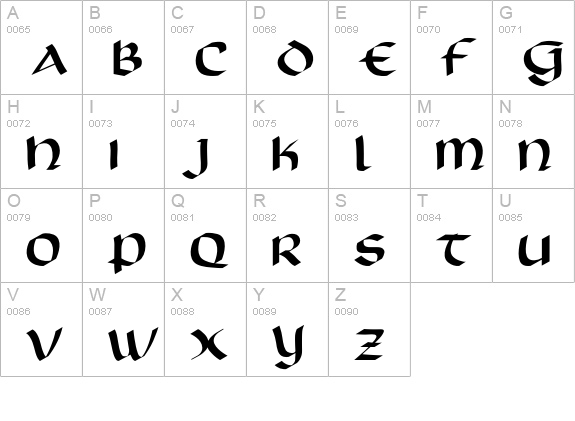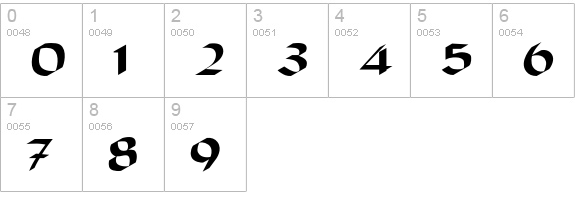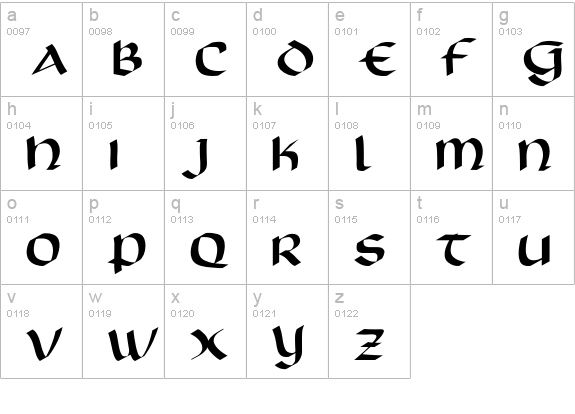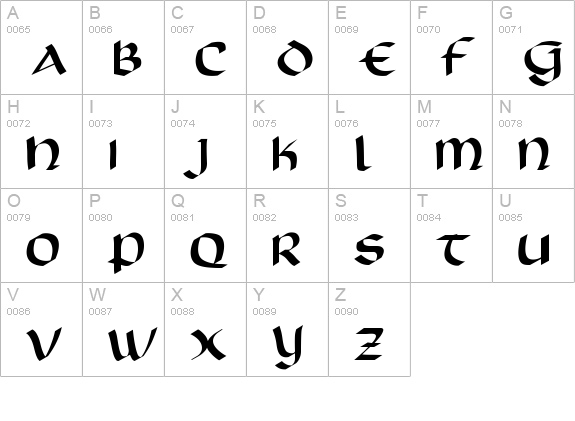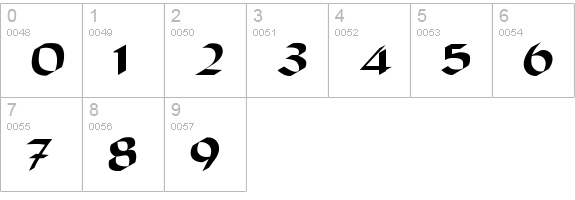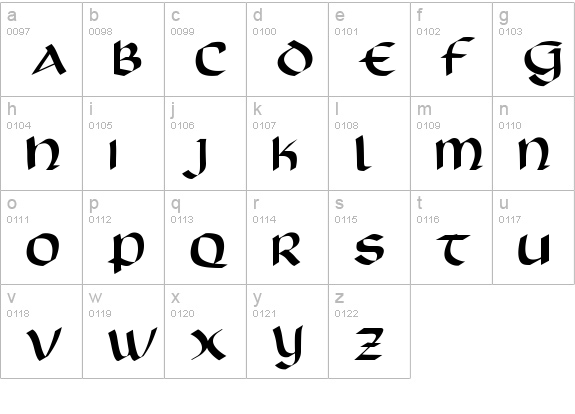
ScotfordUncial Font Details
ScotfordUncial font is a beautifully crafted typeface that exudes elegance and sophistication. With its unique and intricate letterforms, this font is perfect for adding a touch of old-world charm to your designs. The flowing curves and delicate strokes of ScotfordUncial font create a sense of grace and gracefulness, making it an ideal choice for invitations, greeting cards, and other creative projects. Whether you're designing a wedding invitation or a vintage-inspired poster, this font will add a touch of timeless beauty to your work. ScotfordUncial font is freely available to download at FontsMarket.com. This means that you can easily access and use this font for all your personal and commercial projects without any cost. With its versatile and eye-catching design, ScotfordUncial font is sure to become a favorite among designers and typographers alike. So, if you're looking for a font that combines elegance, sophistication, and a touch of nostalgia, look no further than ScotfordUncial font. With its timeless appeal and free availability, this font is a must-have for any designer's toolkit. Download ScotfordUncial font today from FontsMarket.com and unleash your creativity with this stunning typeface.